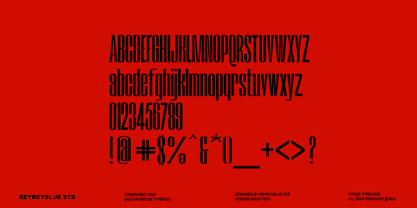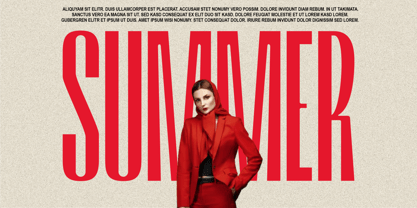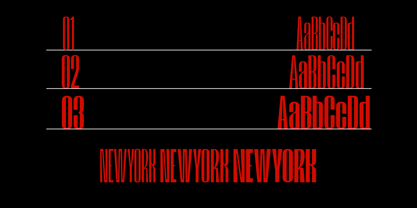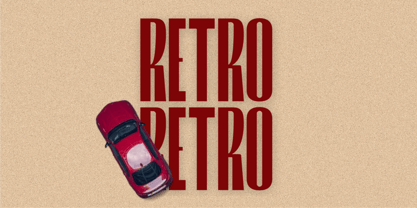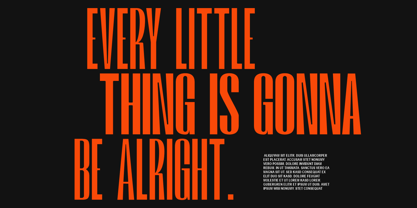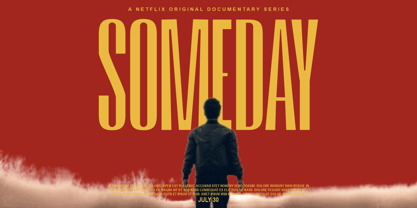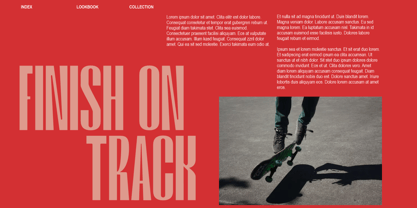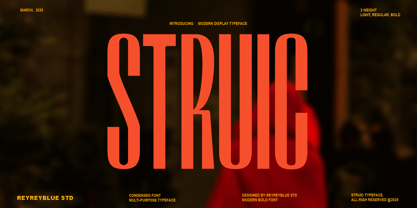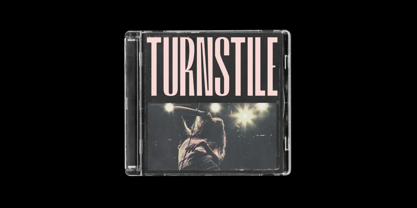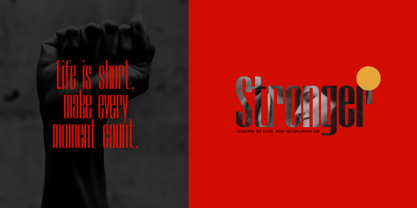
RB Struic
by Reyrey Blue Std
The RB Struic Font Family was designed by Risca Anitawati, Nur Hasan and published by Reyrey Blue Std. RB Struic contains 3 styles and family package options.
STRUIC – Modern Elegance for High-End Branding
Looking for a high-impact, modern font that demands attention? Introducing STRUIC – a sleek, condensed display typeface designed for bold branding, striking headlines, and stylish editorial layouts. Blending modern minimalism with a refined touch, STRUIC is the perfect choice for high-end branding, premium design, and contemporary aesthetics.
Why STRUIC is the Perfect Typeface for Your Project:
✔ Three Versatile Weights – Light, Regular, and Bold to fit any design need.
✔ Condensed & Space-Saving – Maximize impact without sacrificing style.
✔ Modern Minimalism with a Refined Touch – Ideal for tech, fashion, and high-end branding.
✔ High Readability – Sharp, clean letterforms optimized for print and digital use.
✔ Multi-Purpose Usage – Perfect for logos, posters, magazine covers, social media graphics, packaging, and more.
Who Should Use STRUIC?
Graphic designers looking for a sleek, bold font for impactful visuals.
Brands & agencies need a typeface that embodies modern elegance for high-end branding.
Creatives & content creators want to elevate their designs with a refined, minimalist aesthetic.